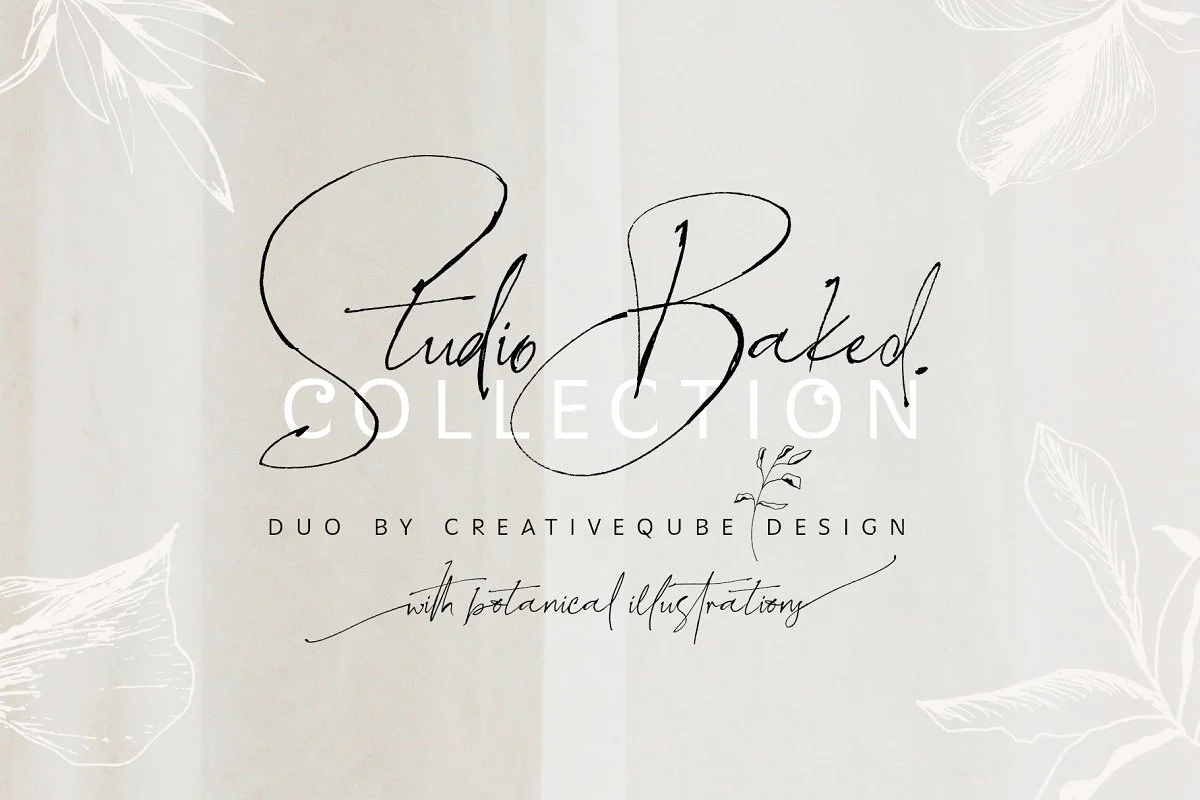
Studio Baked Font Collection
Studio Baked Font Collection is perfect for creative agency branding, artisan bakery logos, handcrafted product packaging, independent coffee shop signage, creative studio marketing, authentic food branding, maker business identity, craft workshop materials, small batch product labels, and warm designs that celebrate handmade quality and creative craftsmanship.
This collection is exciting because it offers a carefully curated set of complementary typefaces that work harmoniously together, providing designers with a complete typographic toolkit for building cohesive brand systems. The diverse font styles capture the warmth and authenticity of artisanal craftsmanship while maintaining professional polish, making it perfect for businesses that value quality, creativity, and genuine human connection.
The Studio Baked Font Collection family typically includes multiple font styles ranging from script to sans-serif variations, uppercase and lowercase characters, numerals, punctuation marks, decorative elements, and special glyphs that enable comprehensive branding solutions with cohesive visual harmony.
Whether you're creating authentic artisan brand identities, designing for creative entrepreneurs, or developing marketing materials for businesses that celebrate handmade quality and creative passion, Studio Baked Font Collection Free Download delivers exceptional typographic variety and flexibility. Its warm character and artisanal appeal make every project feel more genuine and thoughtfully crafted, ensuring your designs communicate creativity, quality, and the personal touch that distinguishes handcrafted excellence from mass production.